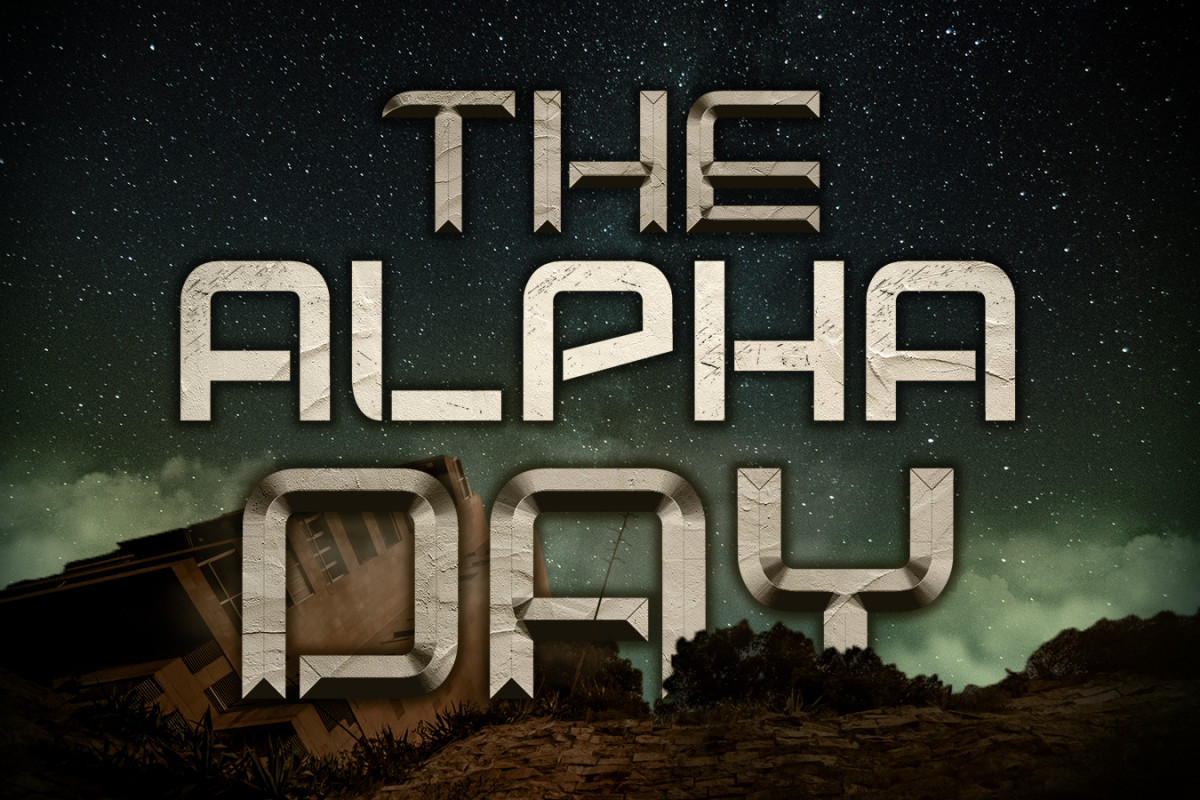
"The Alpha day" named after performing a level of operations was massive typographic design on March 14, 2019 a futuristic typography with a rather mysterious style.
Two sibling styles to complement good design compositions.
"The Alpha day" Nombrada así después de realizar un nivel de operaciones se diseño tipográfico masivo el 14 de marzo de 2019 una tipografía futurista con un estilo bastante misterioso.
Dos estilos hermanos para complementar buenas composiciones de diseño.